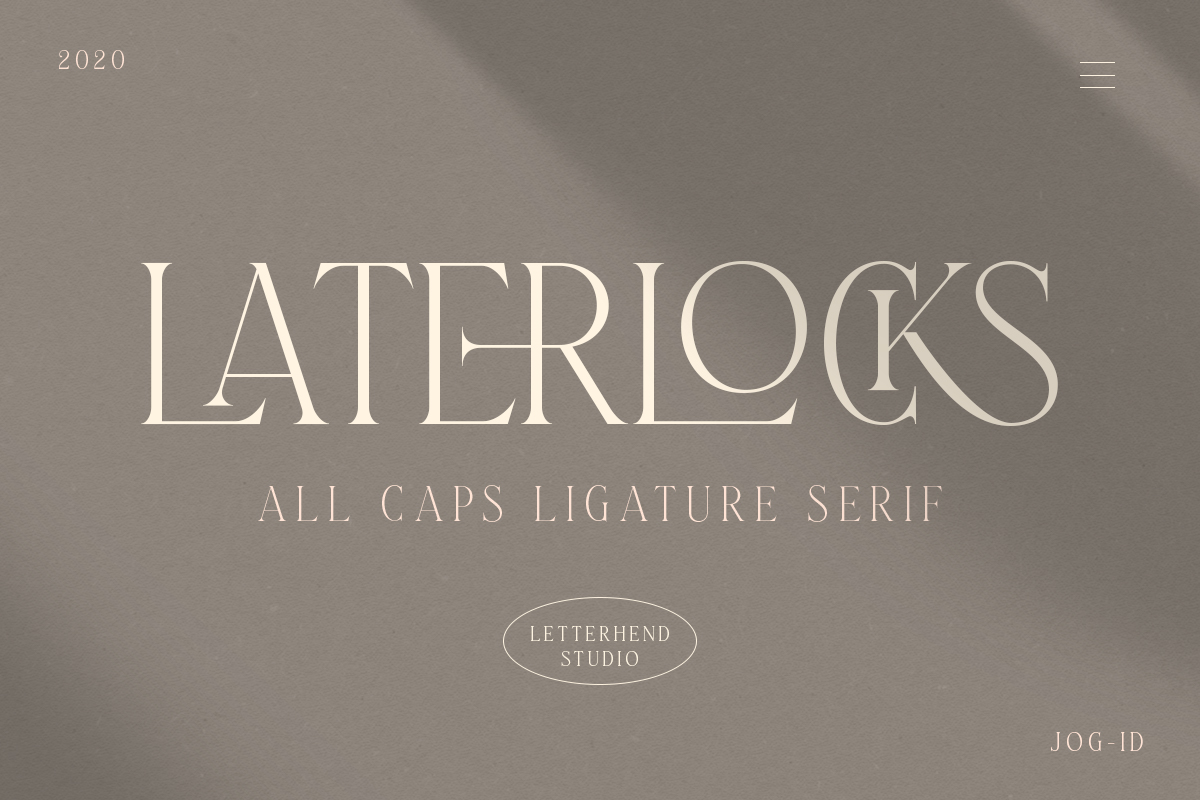
Laterlocks Font
This modern and versatile typeface is perfect for contemporary branding, tech company logos, corporate presentations, website headers, mobile app interfaces, digital marketing campaigns, minimalist poster designs, architectural firm branding, and cutting-edge product packaging that requires a sleek, professional appearance.
Laterlocks Font brings excitement to design projects with its innovative interlocking character structure and futuristic aesthetic. The font features unique letterform connections that create visual harmony while maintaining exceptional readability. Its geometric precision combined with subtle curves makes it an ideal choice for brands that want to communicate innovation, reliability, and forward-thinking vision in their visual communications.
The Laterlocks Font family includes comprehensive style options: Regular, Bold, Light, Medium, Condensed, Extended, and Italic variations. Each weight maintains the font's distinctive interlocking characteristics while providing designers with complete typographic flexibility. The family also includes alternative character sets, stylistic ligatures, and extensive language support, making it suitable for international branding and multilingual applications.
When searching for contemporary typography solutions, Laterlocks Font Free Download stands out as a sophisticated choice that perfectly balances modernity with functionality. Professional designers consistently select this font for its ability to create strong brand identities while ensuring optimal user experience across digital platforms. The typeface performs exceptionally well in both large display sizes and smaller body text applications.
The font's technical excellence includes carefully optimized spacing, advanced OpenType features, and superior screen rendering capabilities. Whether you're designing corporate identities, user interfaces, or marketing materials, this font delivers the professional polish that modern brands require. Its clean lines and intelligent character relationships make it particularly effective for technology-focused companies and innovative startups.